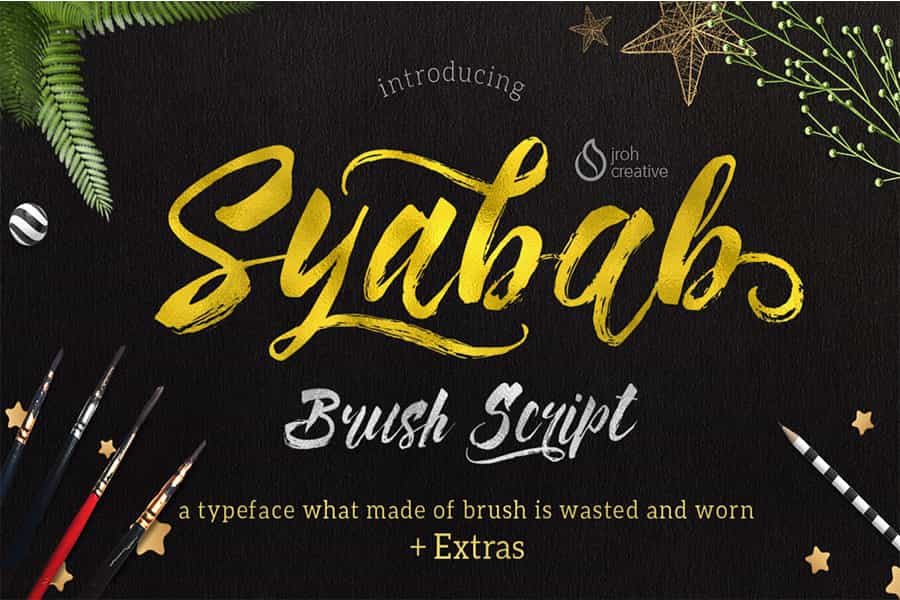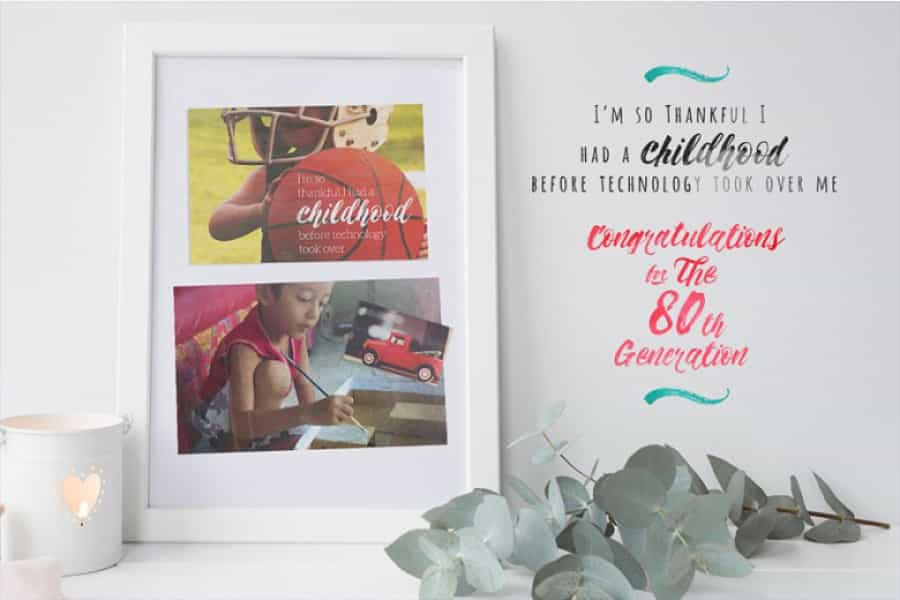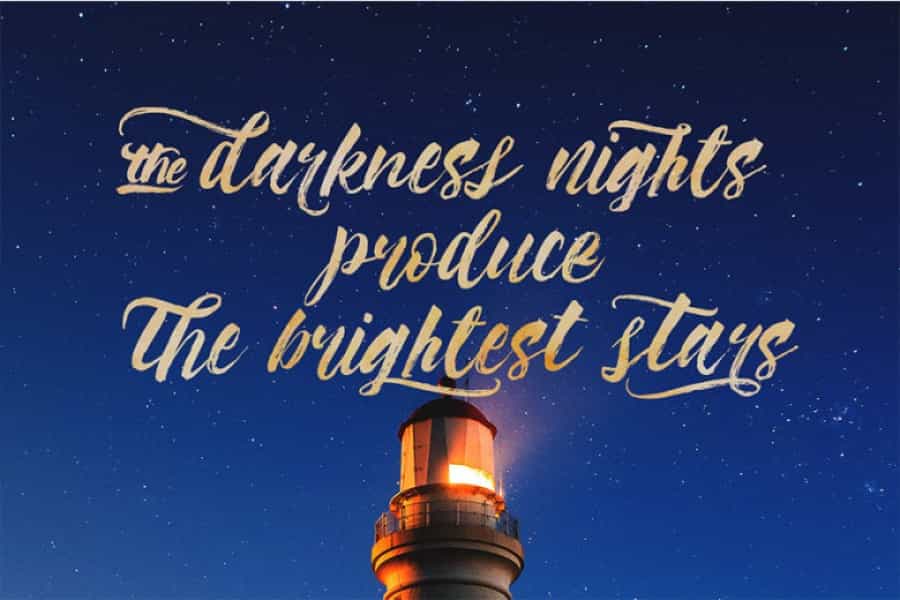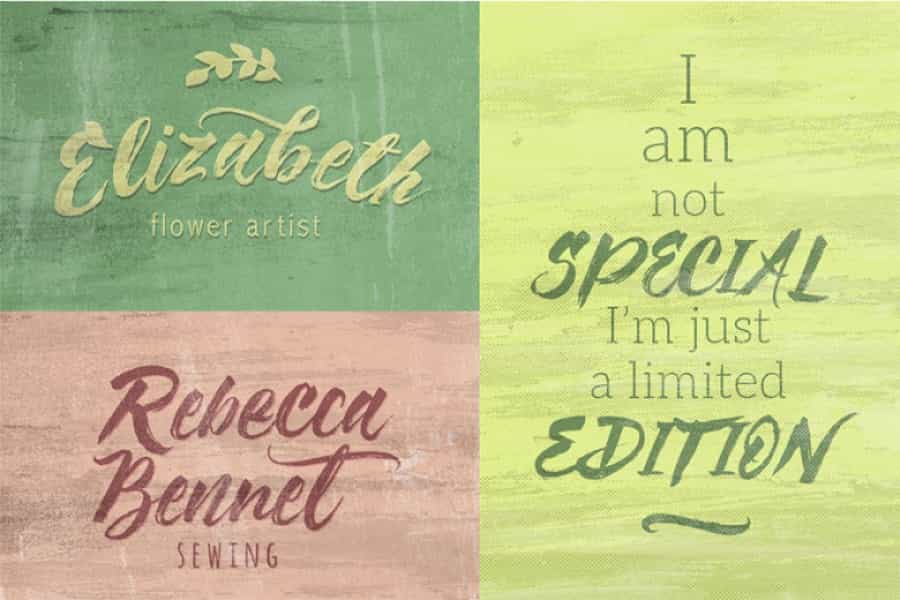
Introducing my new font in this spring and hope you will like it. Syabab Brush Script is the character that was unintentionally made because of the scribble exercise with brushes that have been used until they are bent and rusty. These fonts may be ideal for many a design that requires a cute and stylistic display in the vintage or modernisms style.